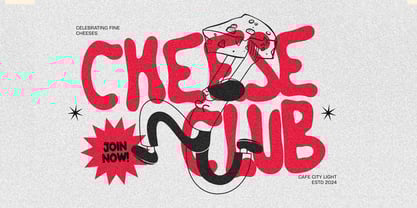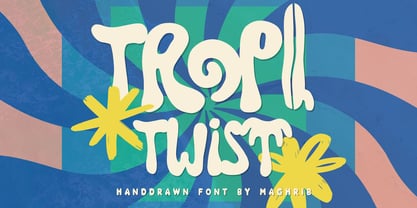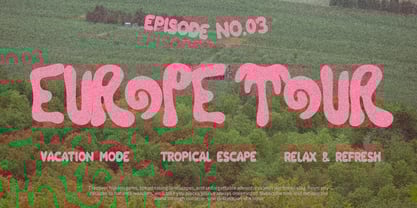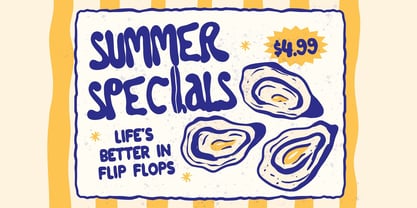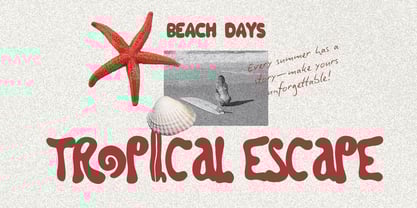
Tropi Twist
by Maghrib Type
The Tropi Twist Font Family was designed by Rizky Setyaludin and published by Maghrib Type. Tropi Twist contains 2 styles and family package options.
Tropi Twist is a playful hand-drawn typeface that brings sunshine, rhythm, and retro charm into every design. Inspired by tropical vibes, groovy curves, and carefree summer days, its quirky letterforms dance with personality and warmth. This font is perfect for projects that need to stand out with a bold yet friendly character—whether it’s branding, logos, packaging, posters, or social media graphics. With its organic strokes and lively shapes, Tropi Twist instantly creates an atmosphere of fun, creativity, and nostalgia. From summer festival flyers to beach-inspired packaging, Tropi Twist turns ordinary text into eye-catching typography that feels fresh, energetic, and unforgettable. Bring the joy of endless summer into your work with Tropi Twist—a font designed to make every word playful and full of life.